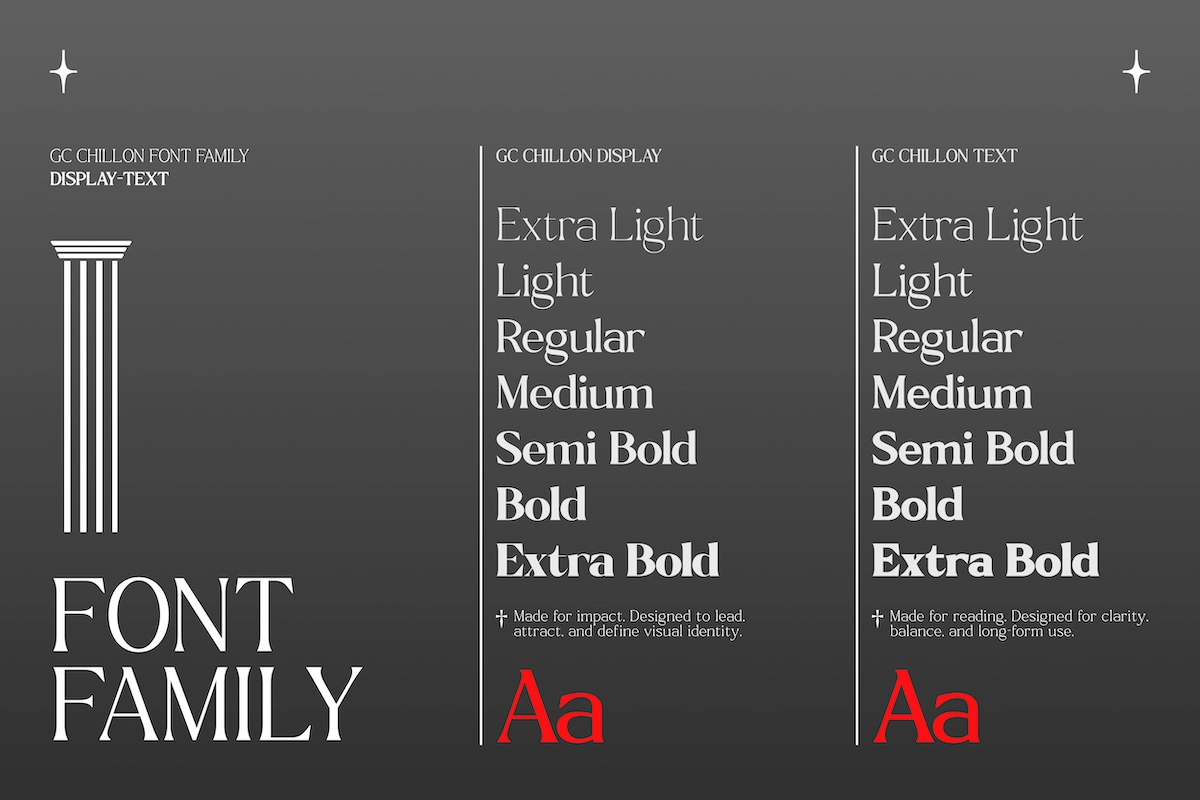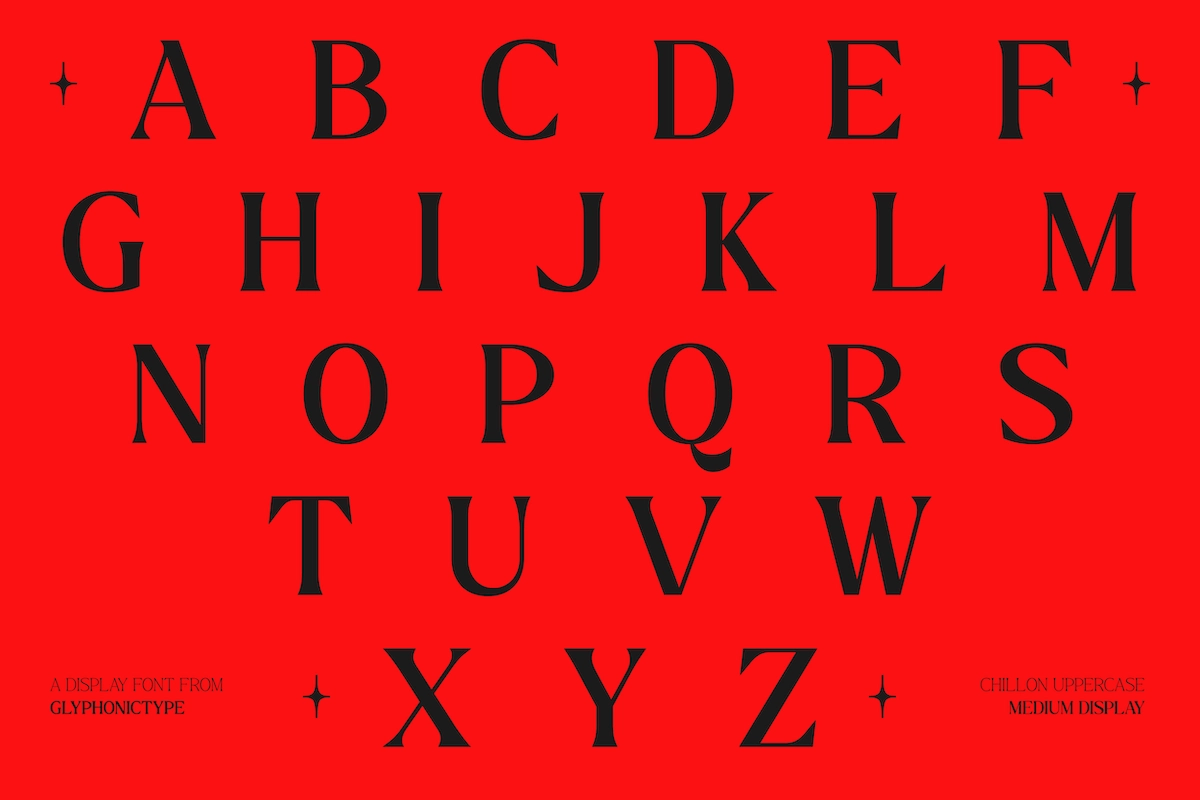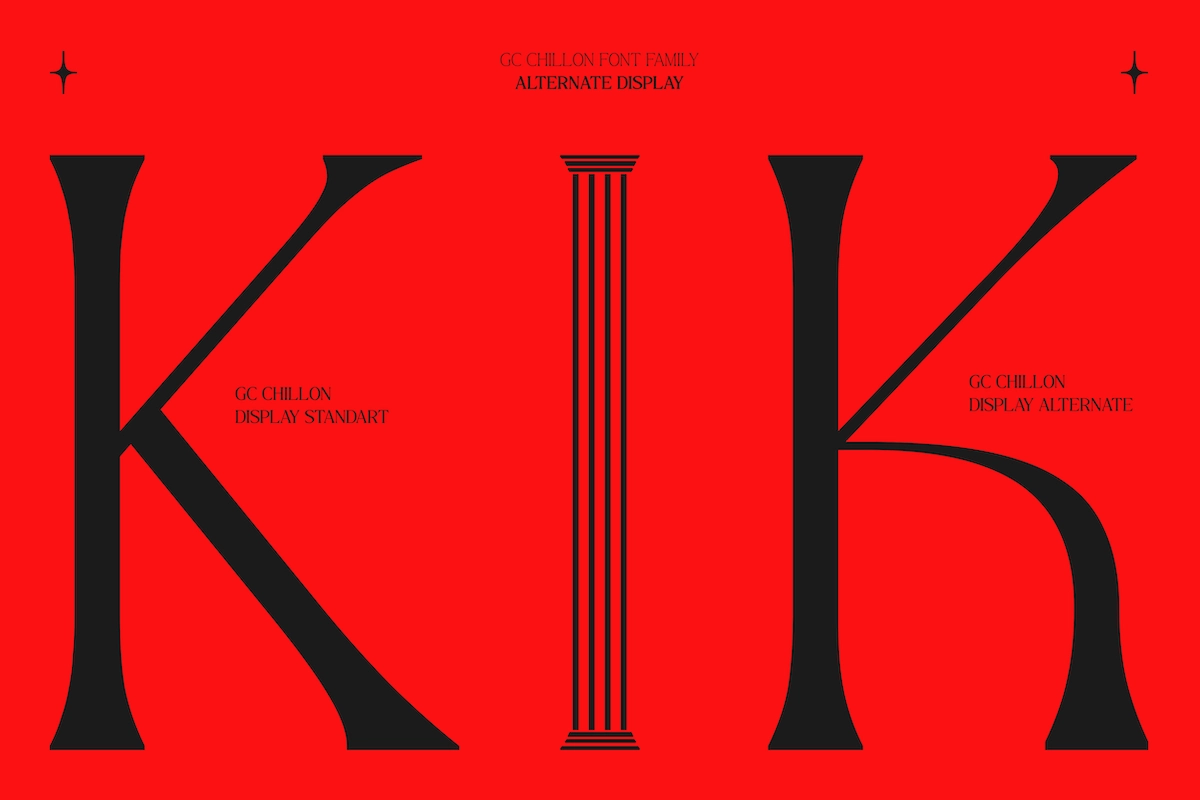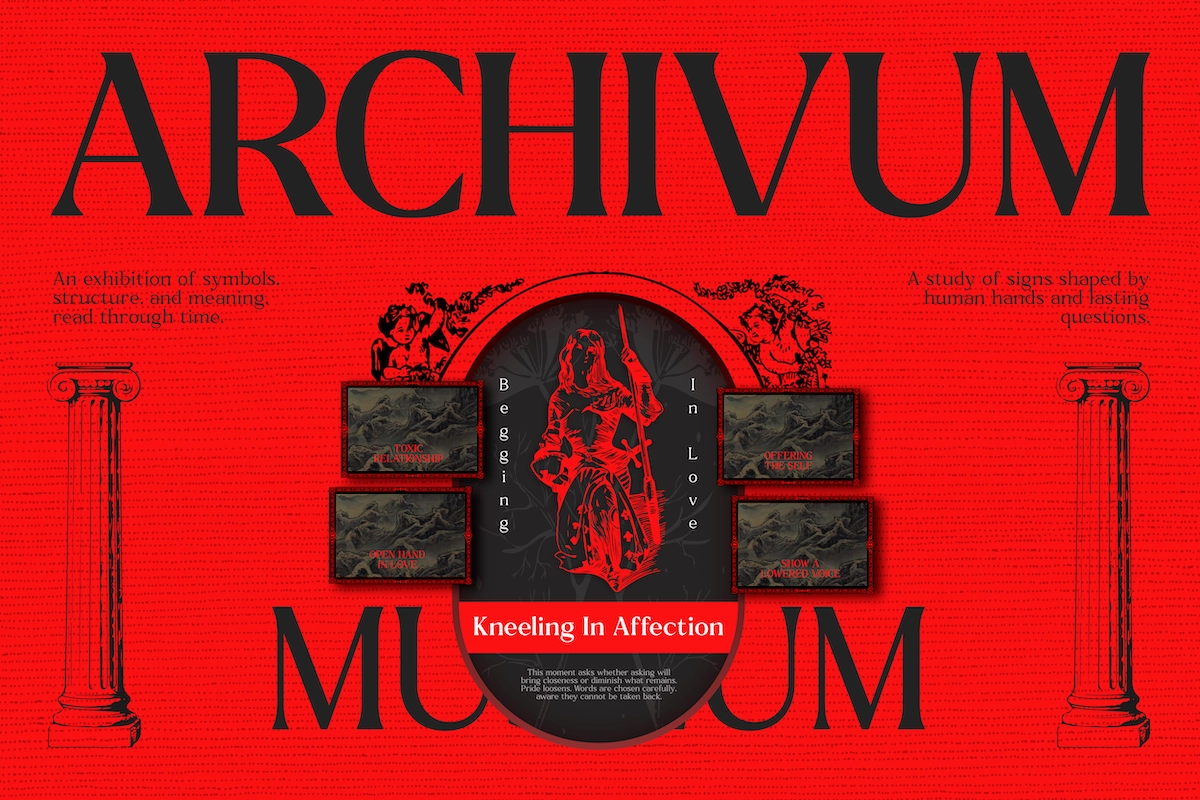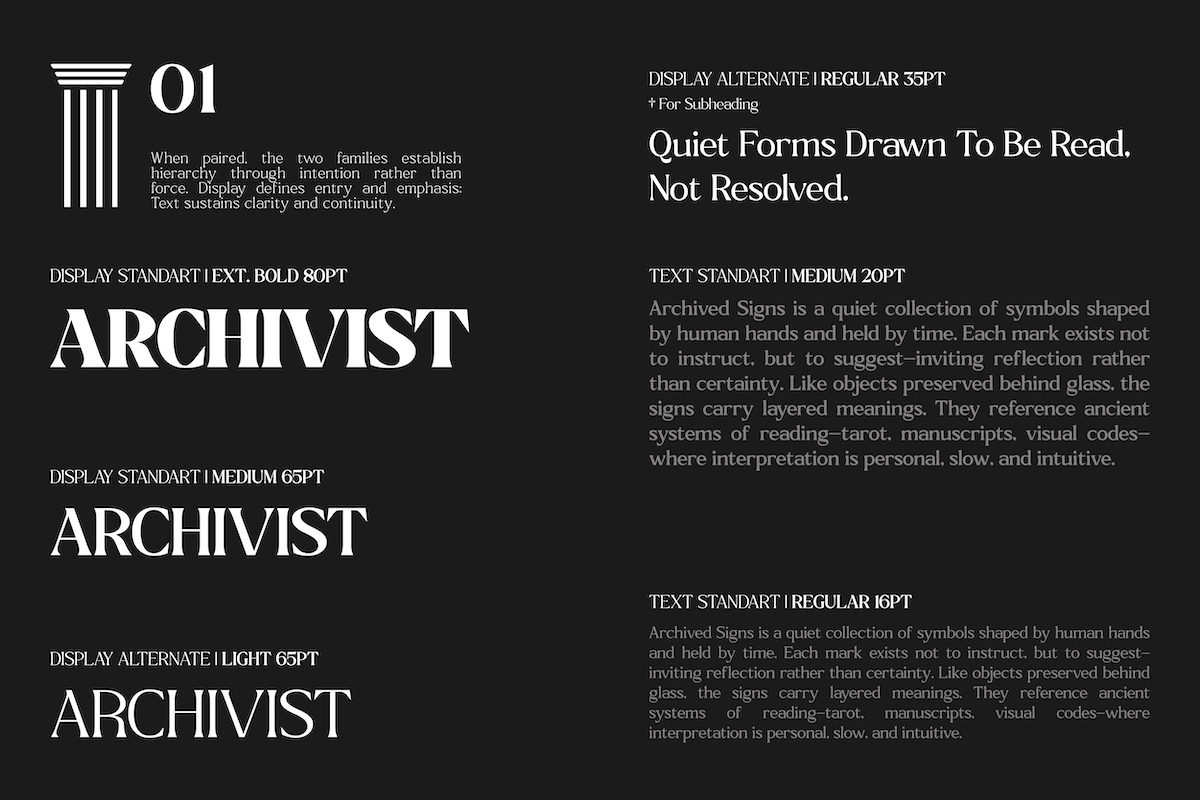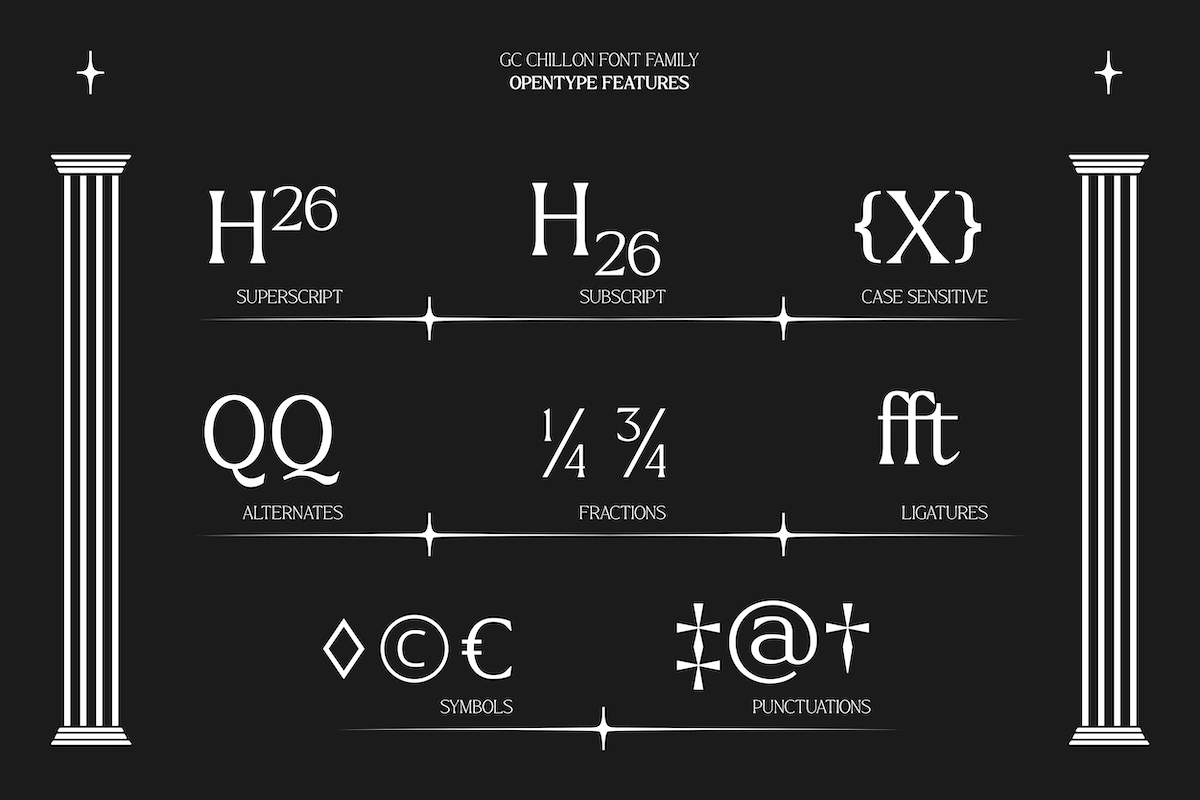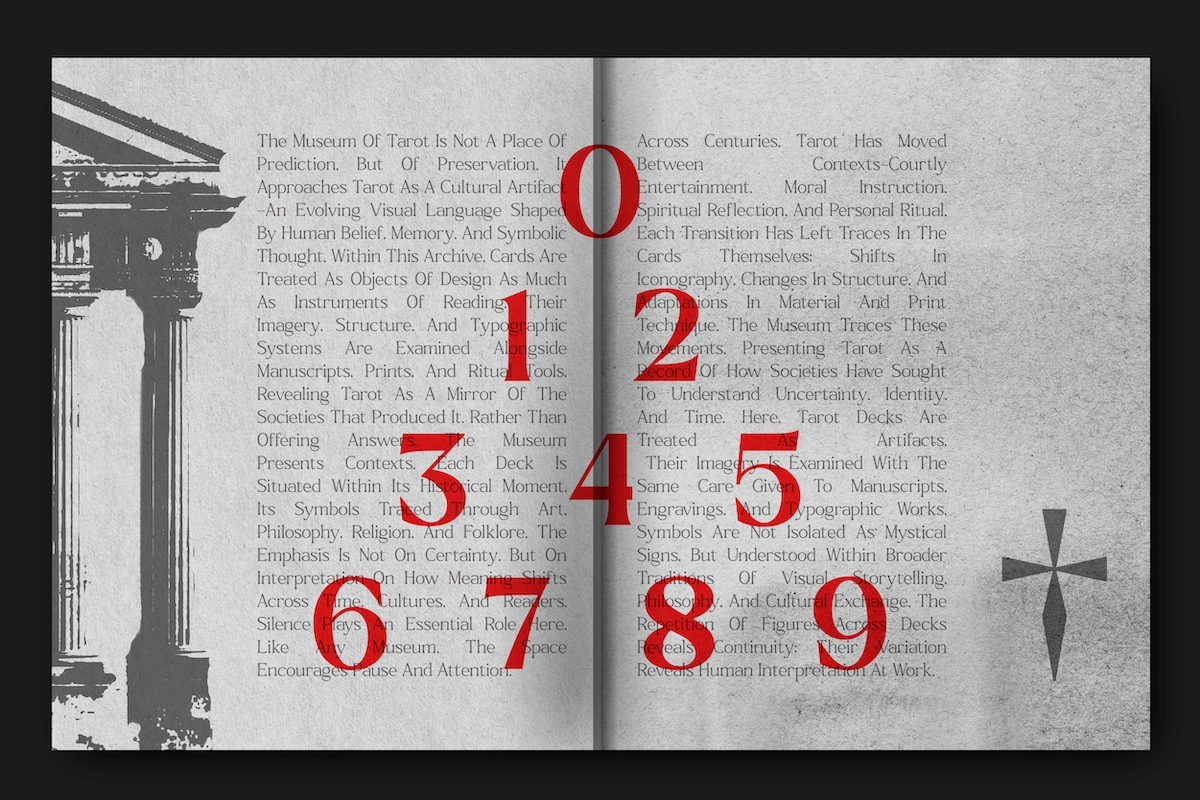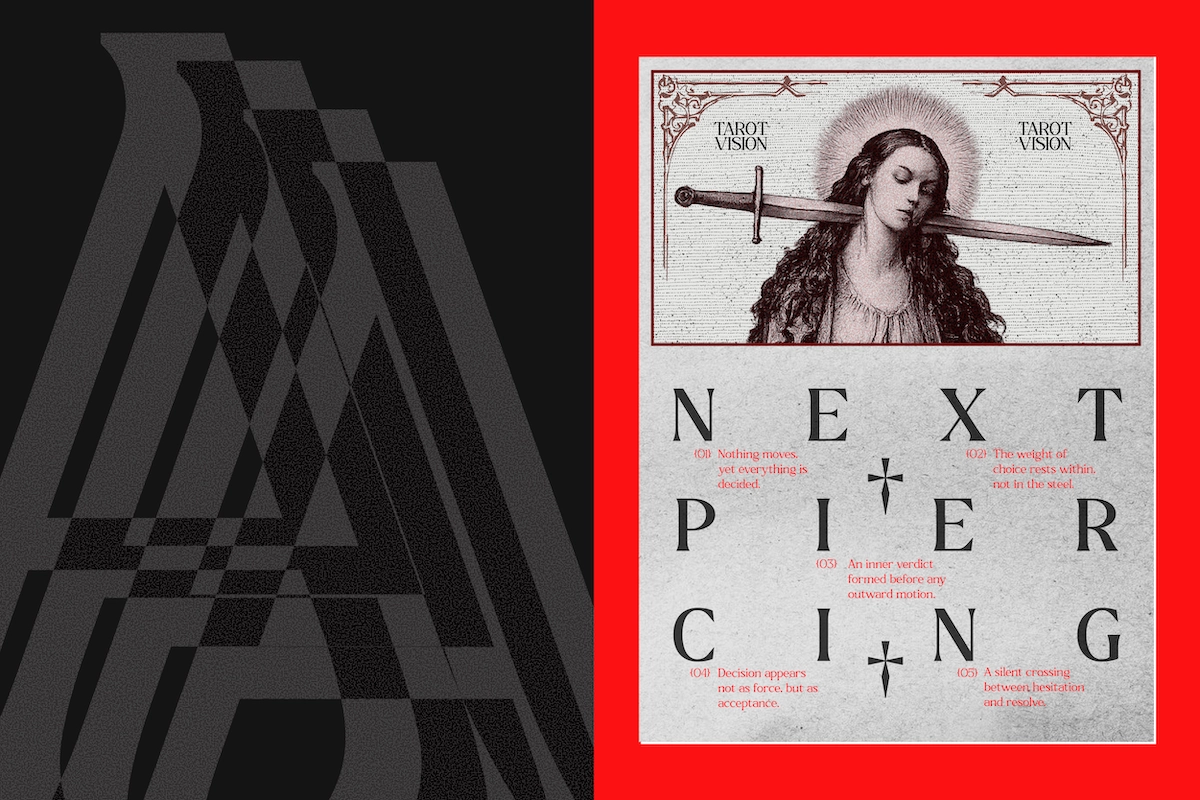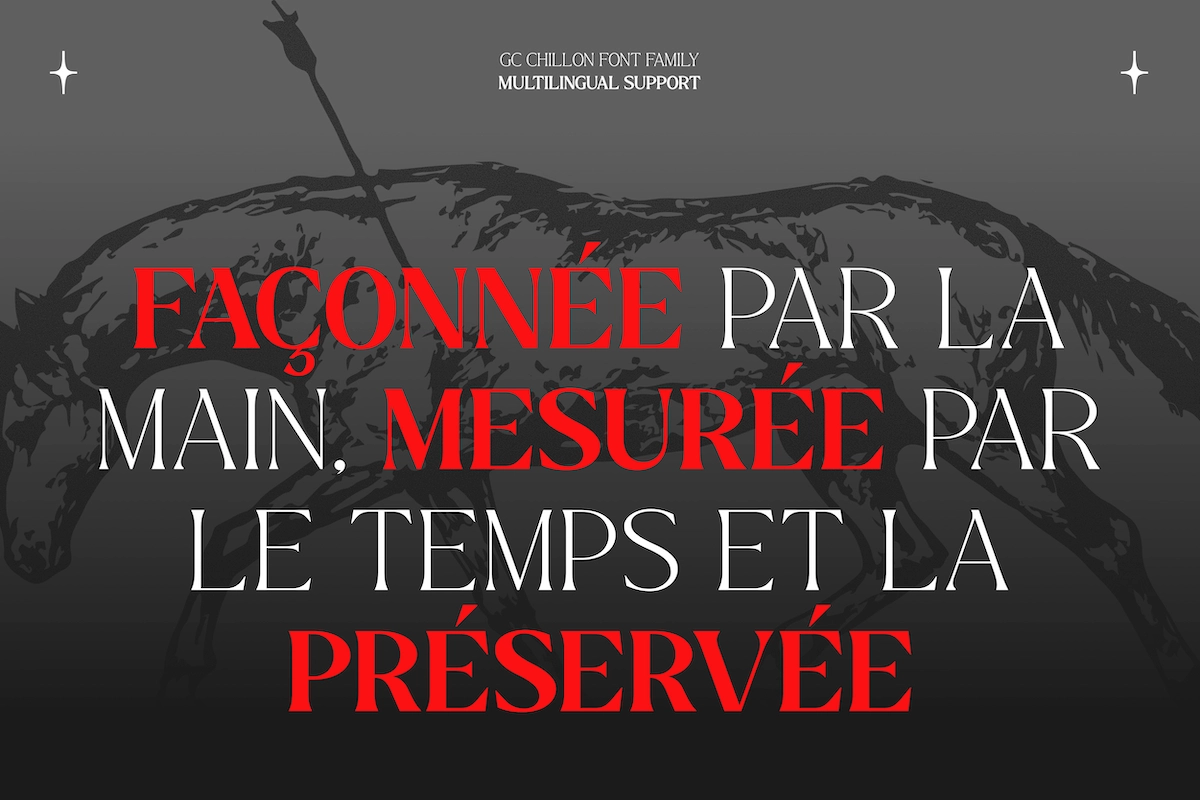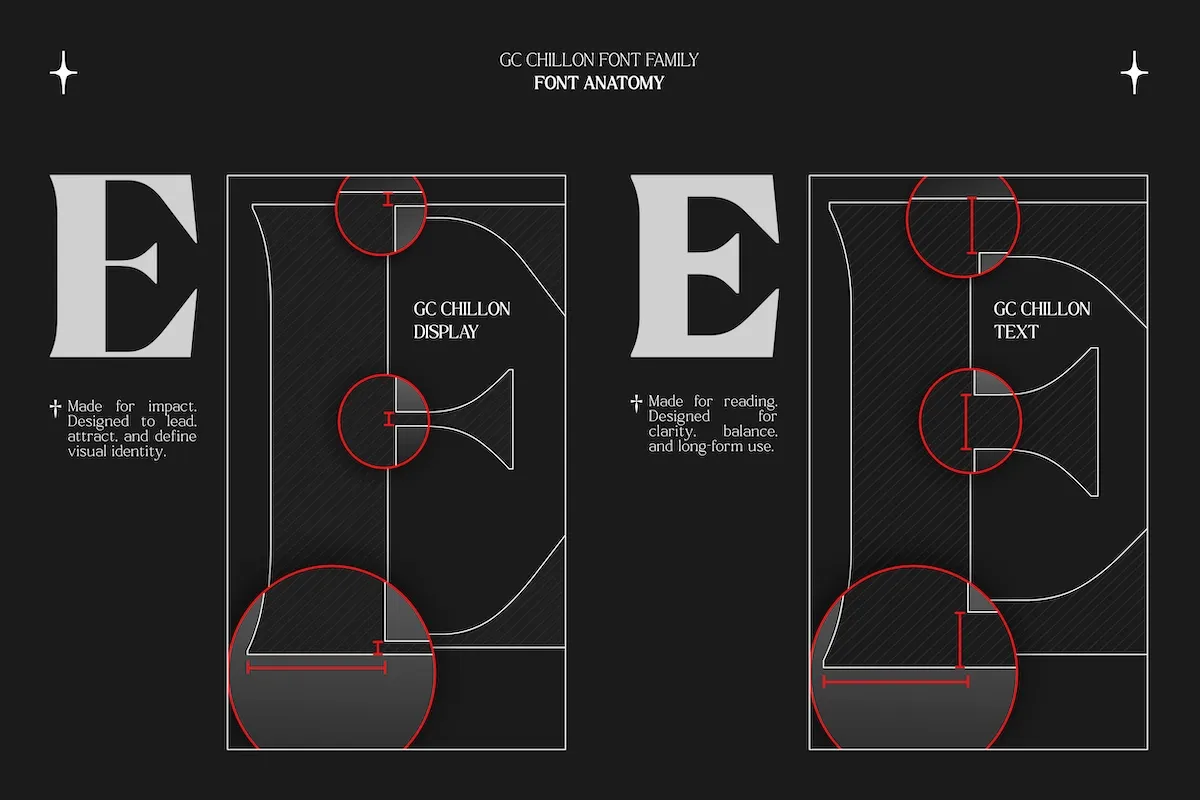
GC Chillon - Roman Serif Display Font
GC Chillon – Roman Serif Display Font is a refined serif typeface that captures timeless elegance and modern sophistication. Designed with graceful proportions, sharp contrasts, and subtle decorative details, it brings a confident yet approachable character to any design project.
Perfect for luxury branding, editorial layouts, fashion design, and refined headlines, GC Chillon blends the authority of traditional serif forms with the flair of a modern display font. Its carefully balanced letterforms ensure legibility at every size while maintaining a strong visual identity.
Built for designers who value both style and structure, GC Chillon font transitions seamlessly from bold titles to elegant body text. Whether used in magazines, brand campaigns, or high‑end packaging, it delivers a polished typographic experience that feels classic, expressive, and strikingly contemporary.
- Stylish Serif Construction